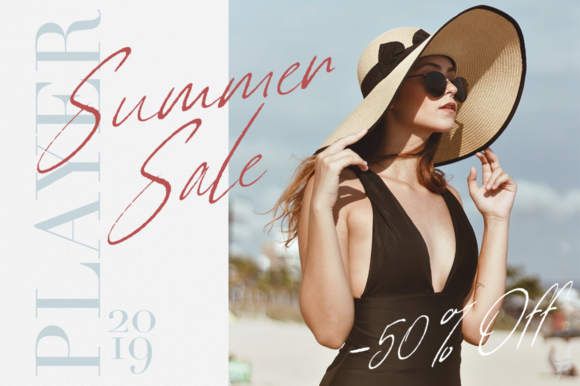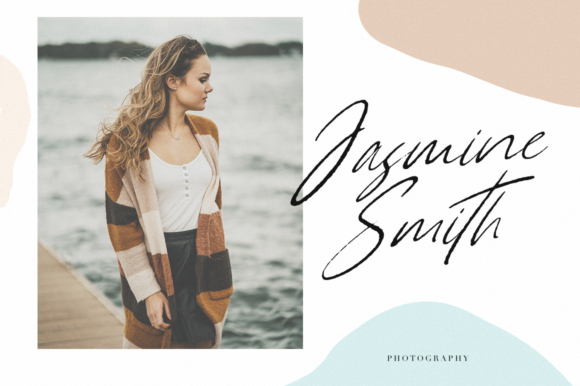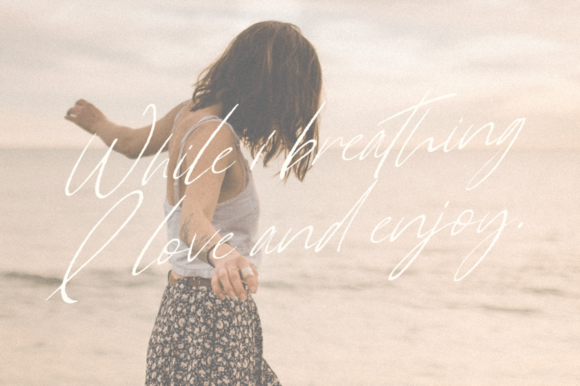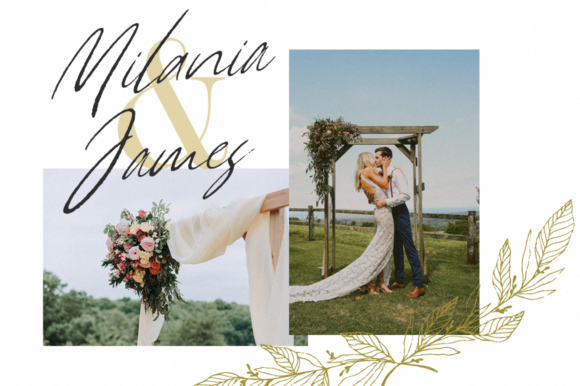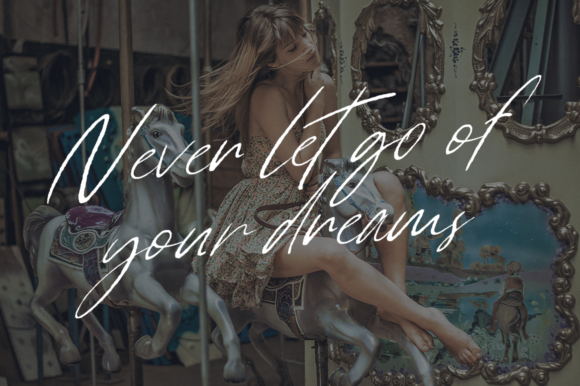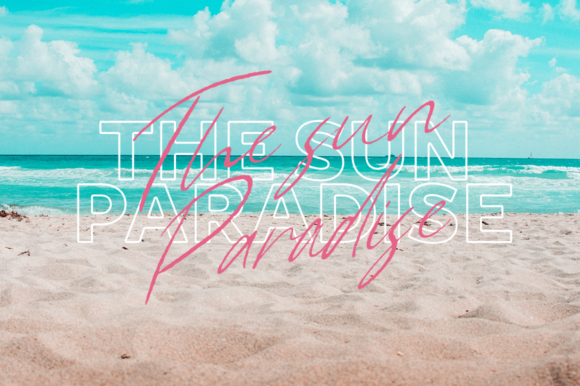
Discover the Perfect Blend of Casual Charm and Bold Style
Have you ever found yourself staring at a blank canvas, searching for the perfect font to bring your design to life? We’ve all been there – the endless scrolling through font libraries, the frustration of finding something that’s almost, but not quite, what you’re looking for.
That’s where the Anderson Font comes in – a cool and light handwritten font with a bold feel that’s guaranteed to add a casual charm to any design idea. This versatile font is perfect for designers who want to create a unique and eye-catching visual identity, without sacrificing professionalism.
With its unique blend of style and substance, the Anderson Font is a valuable addition to any designer’s toolkit. Whether you’re working on a branding project, a social media campaign, or a simple website, this font is sure to elevate your design and leave a lasting impression.
Anderson Font Key Features
- Size: The font family includes 12 weights, ranging from Thin to Black, with corresponding font sizes to suit various design needs.
- Resolution: Anderson Font is designed to be scalable and suitable for use at high resolutions, making it ideal for print and digital applications.
- Unique Characteristics: The font features a unique blend of modern and vintage elements, with subtle nuances that evoke a sense of elegance and sophistication.
- Language Support: Anderson Font supports a wide range of languages, including Latin, Cyrillic, and Greek alphabets, making it a versatile choice for global design projects.
- Kerning and Ligatures: The font includes advanced kerning and ligature pairs, ensuring seamless integration of characters and improved readability.
Anderson Font Review
Overall, I think the Anderson Font is a decent addition to any designer’s toolkit. While it may not stand out in a crowded market, it gets the job done.
- ✨ Friendly, approachable feel that’s great for body text: Anderson Font does an excellent job at conveying a sense of approachability and friendliness, making it perfect for use in body text where readability is key.
- ✨ Versatility in various font sizes: The Anderson Font looks great at both large and small font sizes, which makes it a solid choice for use in headings and captions.
- ⚠️ Limited uniqueness: While the Anderson Font is a solid choice, it doesn’t bring anything particularly new or innovative to the table.
- ⚠️ Not ideal for bold statements: Due to its friendly and approachable feel, the Anderson Font may not be the best choice for use in bold or attention-grabbing headlines.
Overall, I’d say the Anderson Font is a safe choice for designers who want a reliable and easy-to-read font. While it may not be the most exciting option, it’s definitely worth considering for your next project.
Anderson Font Practical Application Guide
Getting the Most Out of the Anderson Font
The Anderson Font is a versatile font that can be used in a variety of contexts. To get the most out of it, try using it in combination with other fonts to create a unique and visually appealing design.
The Anderson Font is commonly used in:
- Brand identities and logos.
- Advertising and marketing materials.
- Editorial and journalistic content.